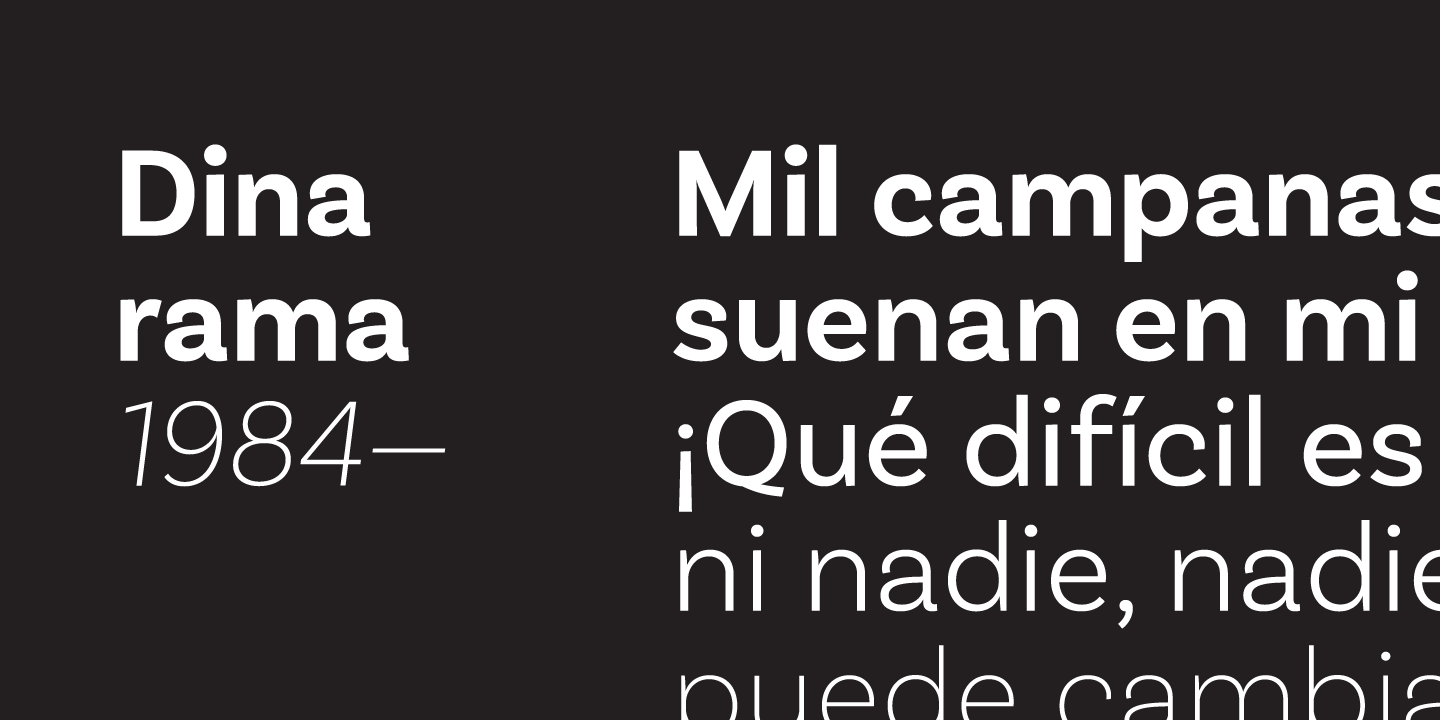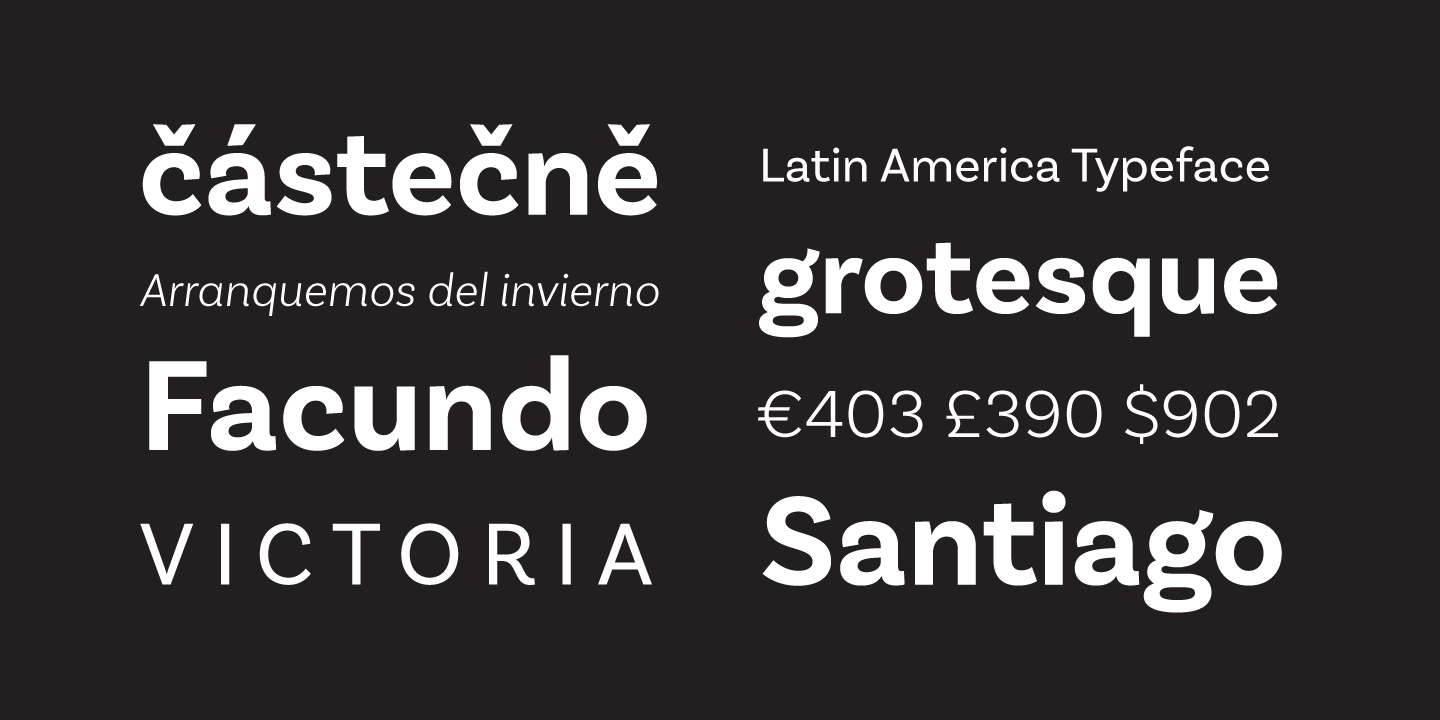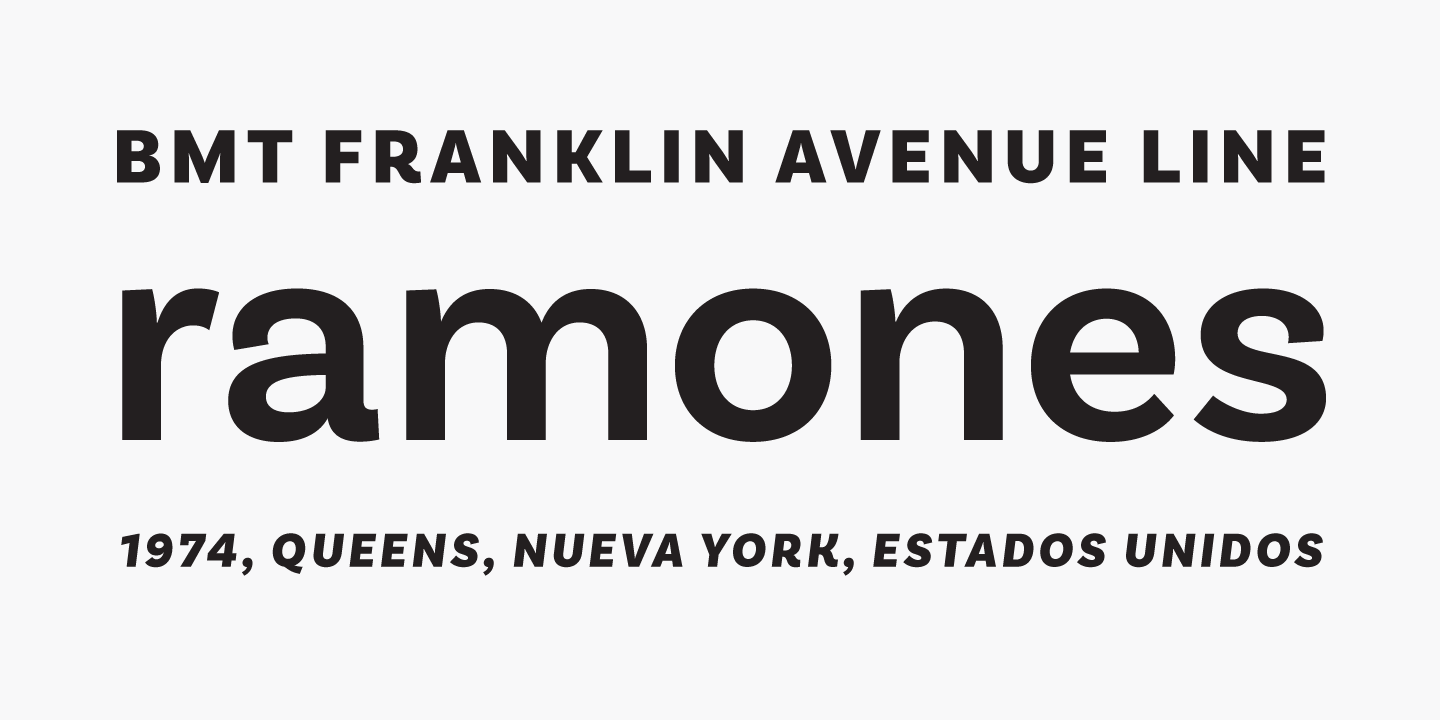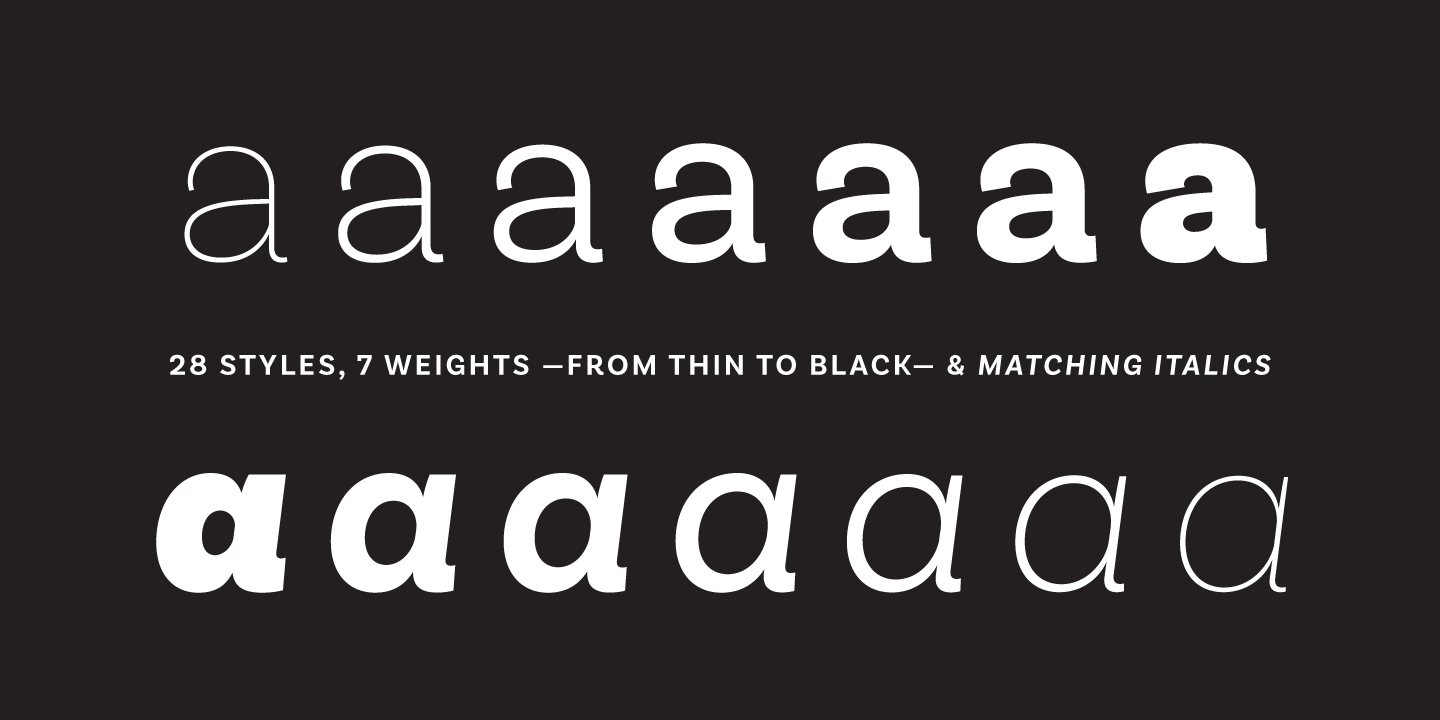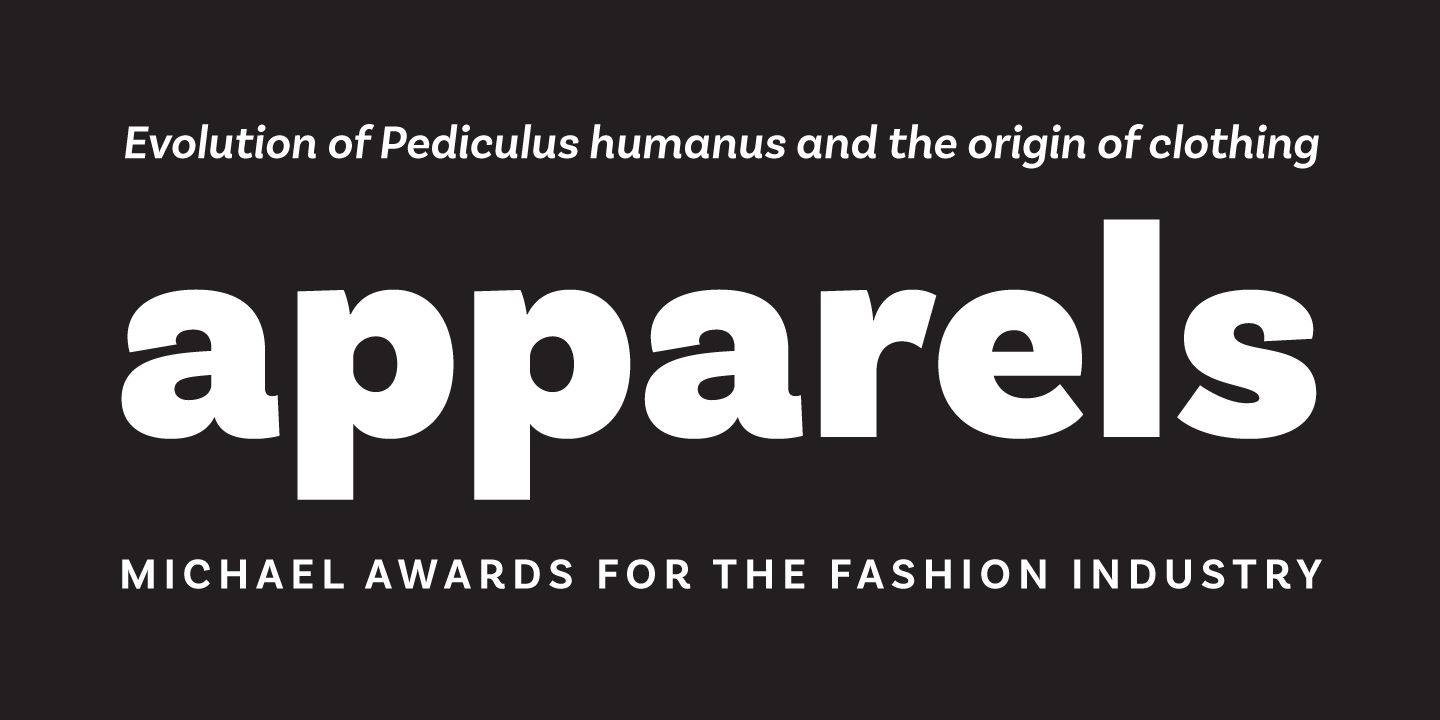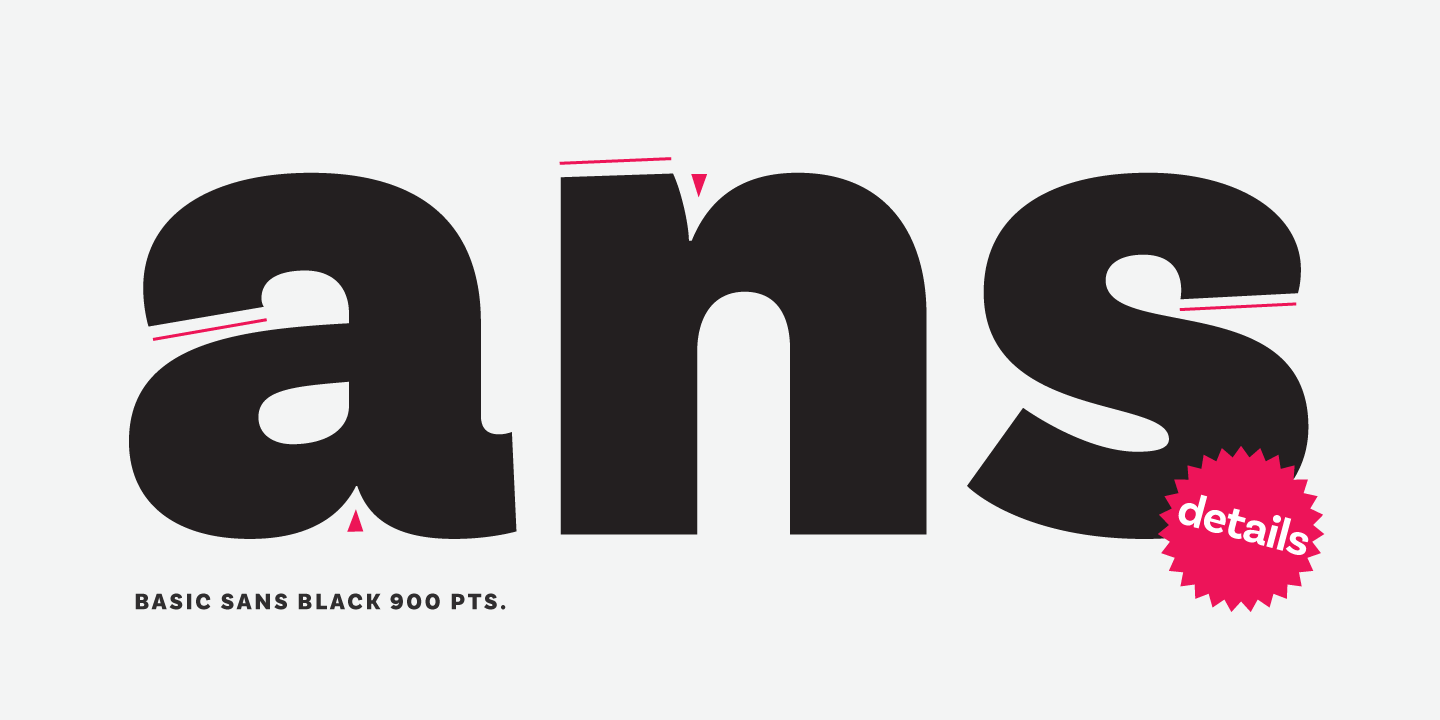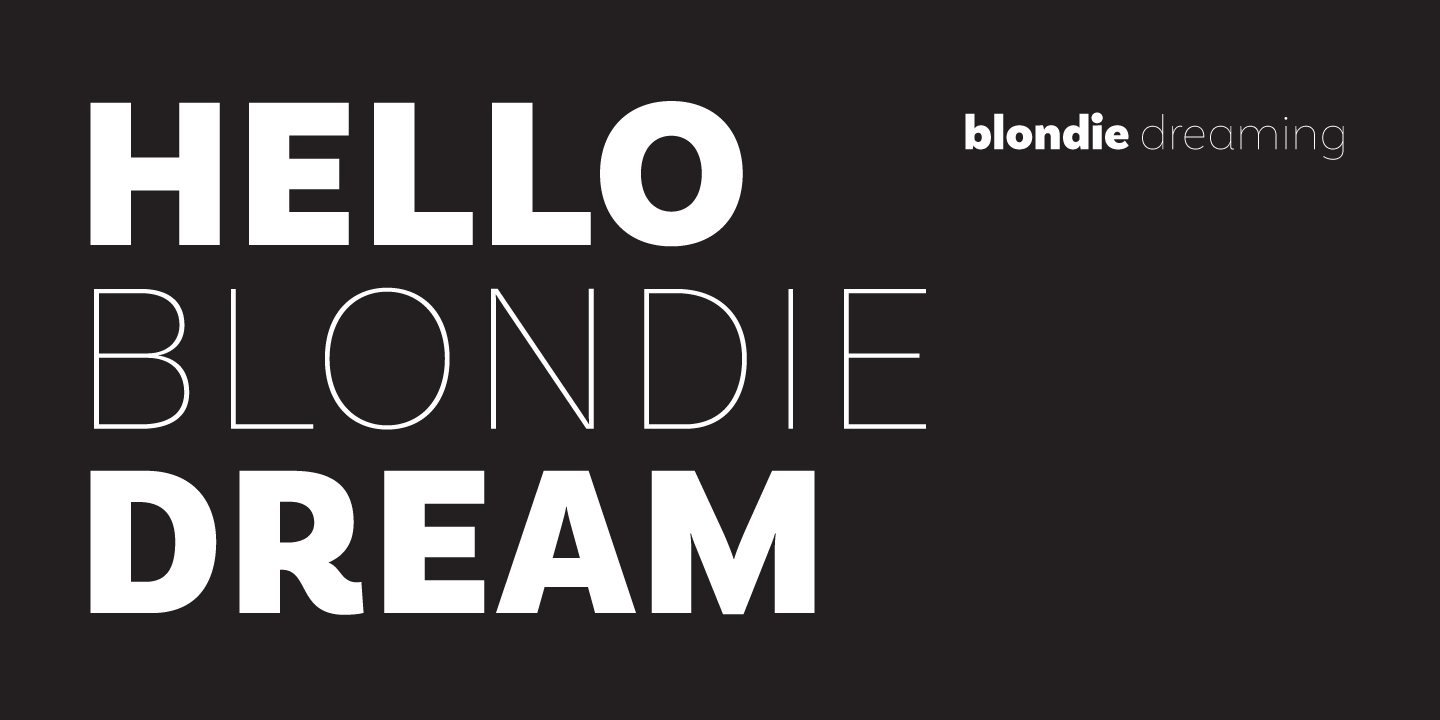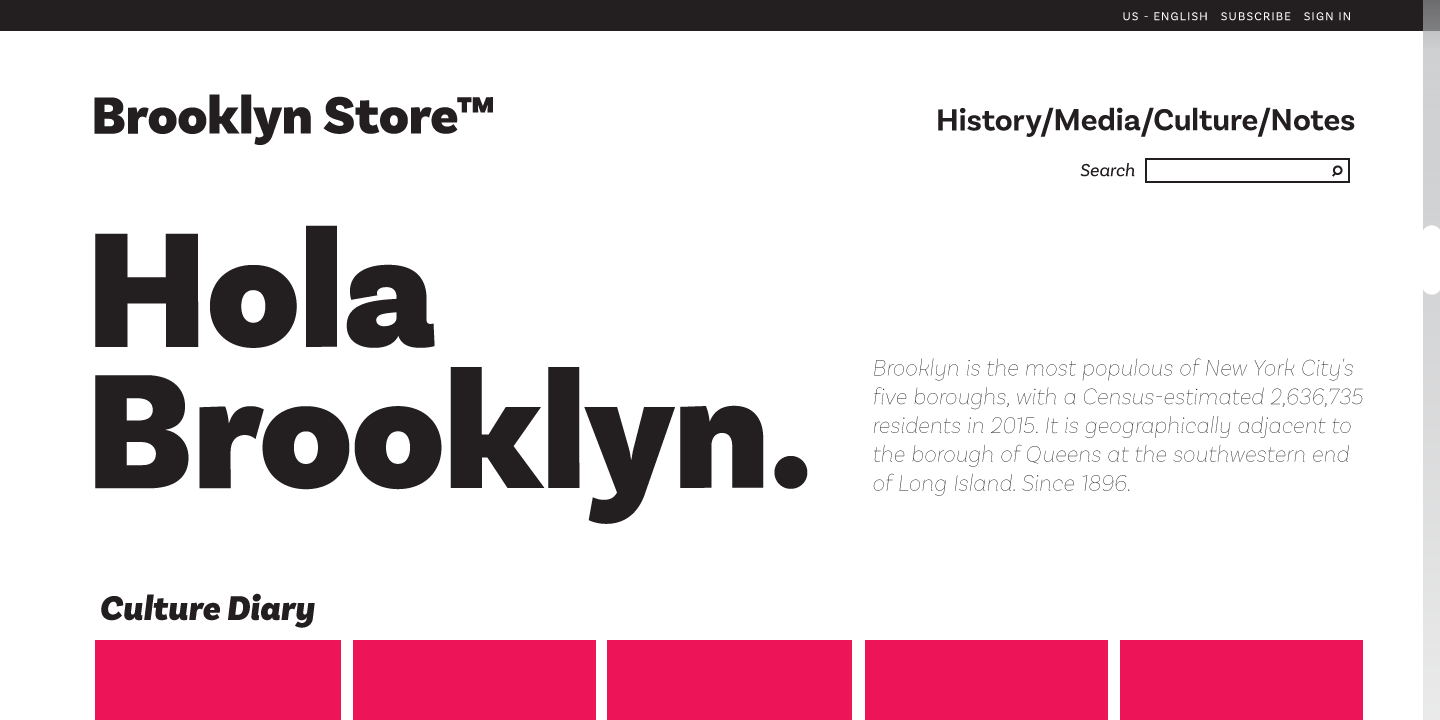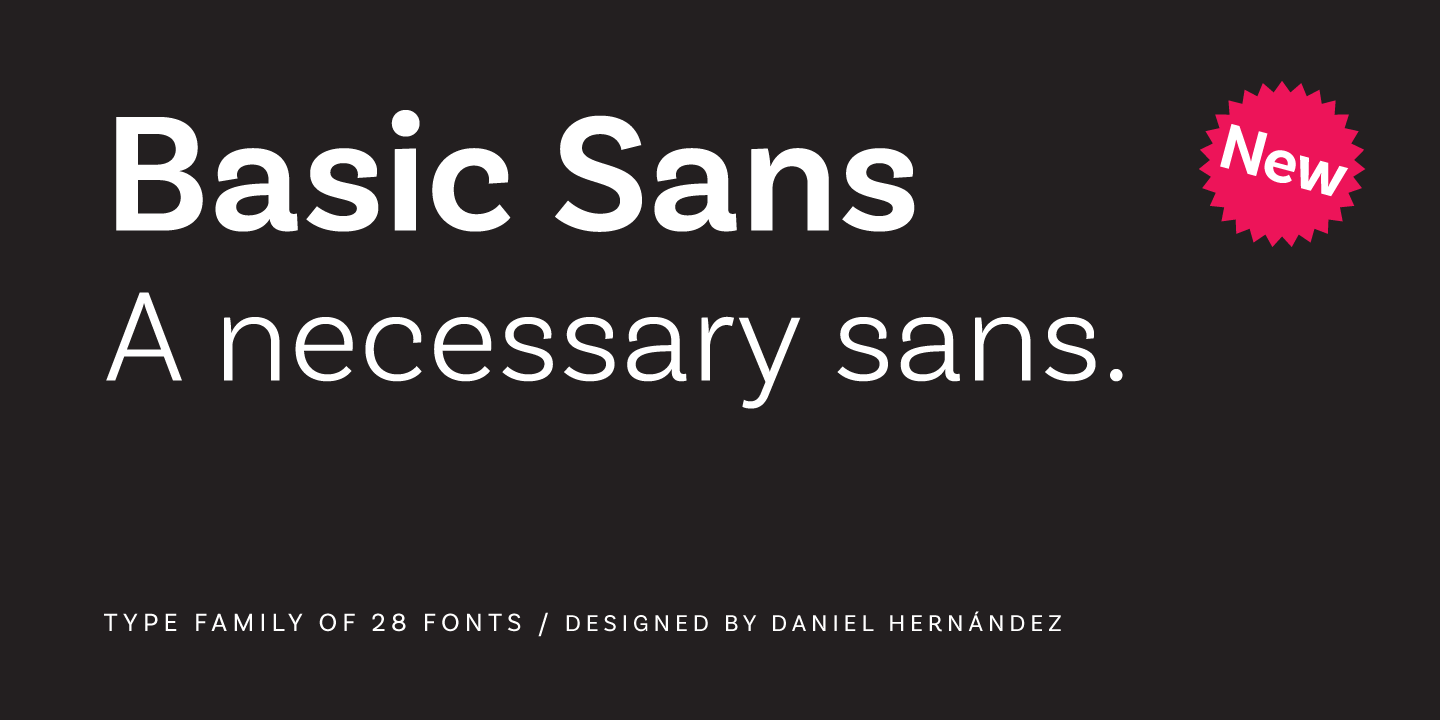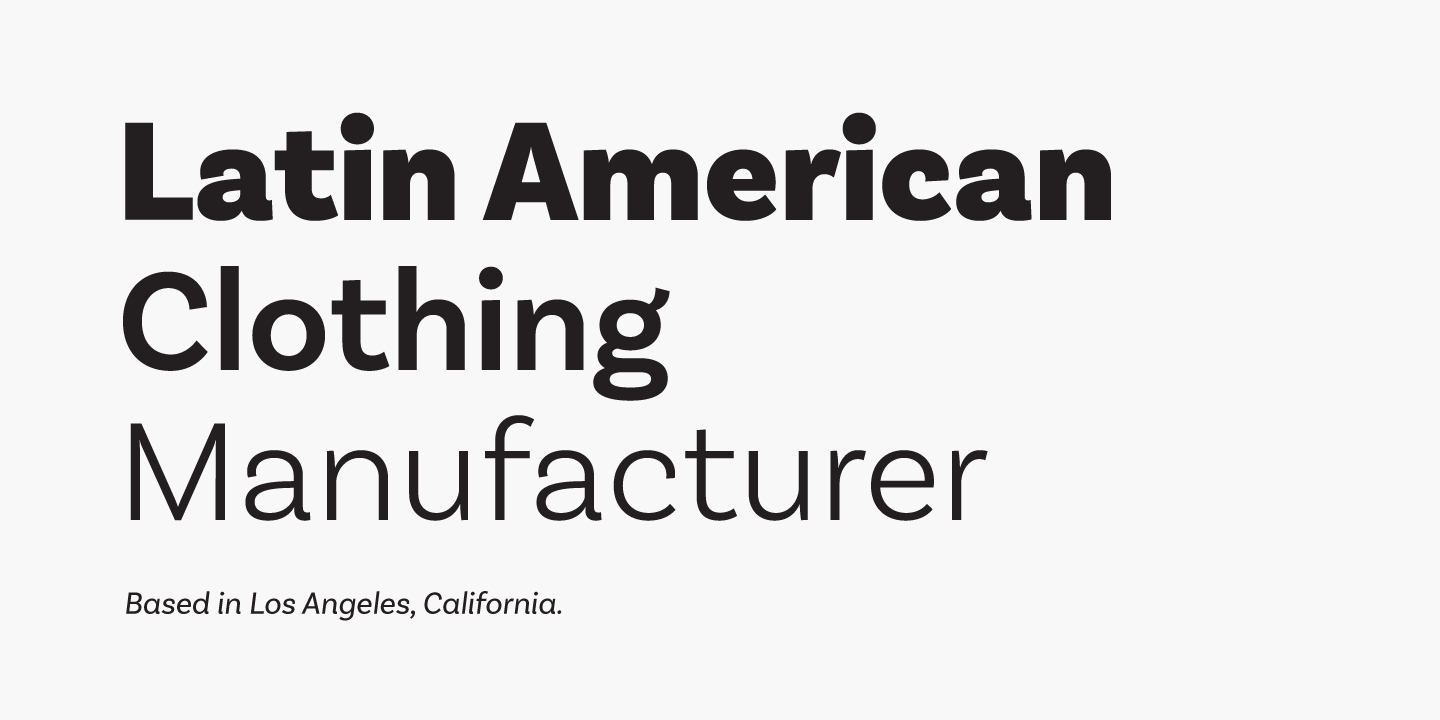
Basic Sans Alt Family (14 fonts)
A family of Grotesque features with a functional, neutral and seeming clean style that looks to keep a neutral (or basic) appearance on paper, but including lots of details that give it a unique personality.
Basic Sans is a sans-serif typeface well-suited for publishing projects, medium-sized text, branding, posters, headlines and more! This font family comes in 7 weights—ranging from Thin to Black—plus matching italics and has a set of 416 characters that support 206 different languages.